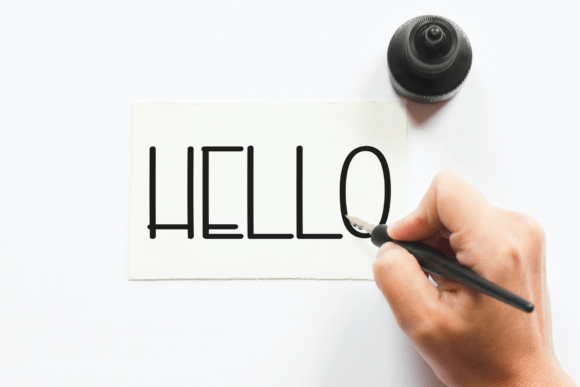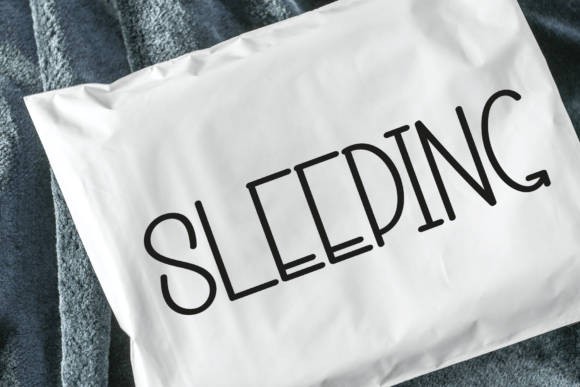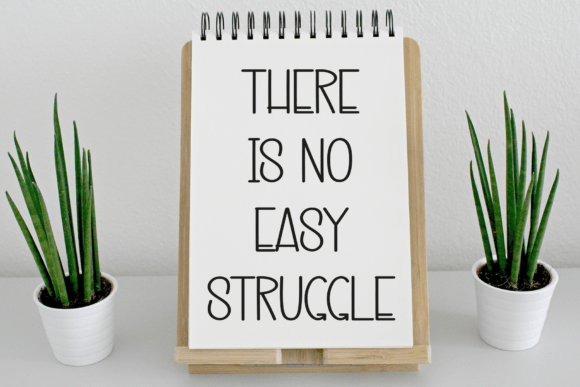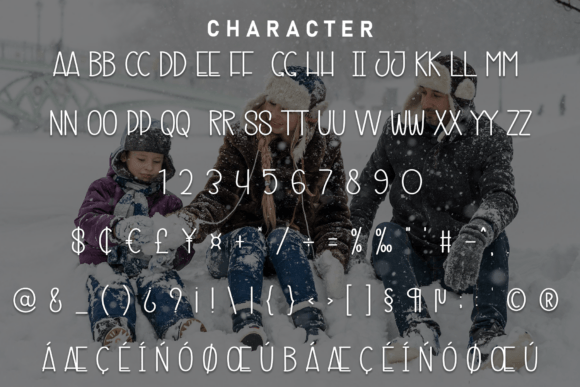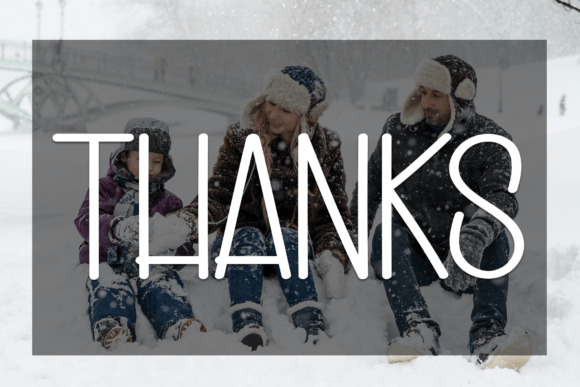
Introducing Happy Moment Font: The Perfect Handwritten Font for Your Design Projects
Are you looking for a font that can add a touch of warmth and personality to your design projects? Look no further than Happy Moment Font, a charming handwritten font that is filled with a sense of heartfelt perfection. With its smooth strokes and organic lines, this font is sure to evoke a relaxed atmosphere, making it perfect for a variety of design projects.
What Makes Happy Moment Font So Special?
Happy Moment Font is a unique and captivating font that is designed to bring a sense of joy and happiness to your designs. Its smooth strokes and organic lines give it a natural and effortless look, making it perfect for designs that require a personal touch. Whether you’re working on a branding project, creating invitations, or designing social media graphics, Happy Moment Font is the perfect choice.
Key Features of Happy Moment Font
- Smooth Strokes: Happy Moment Font features smooth strokes that give it a natural and effortless look.
- Organic Lines: The font’s organic lines add a touch of warmth and personality to your designs.
- Handwritten Style: Happy Moment Font is a handwritten font that is designed to bring a sense of personality and charm to your designs.
- Versatile: This font is perfect for a variety of design projects, including branding, invitations, and social media graphics.
Happy Moment Font is perfect for designers and crafters who are looking for a font that can add a touch of warmth and personality to their designs. Whether you’re working on a personal project or a client’s project, this font is sure to impress. Its unique and captivating style makes it perfect for designs that require a personal touch.
How to Use Happy Moment Font in Your Design Projects
Using Happy Moment Font in your design projects is easy. Here are a few ways you can use this font:
- Branding: Use Happy Moment Font to create a unique and memorable brand identity.
- Invitations: Add a personal touch to your invitations with Happy Moment Font.
- Social Media Graphics: Use Happy Moment Font to create eye-catching social media graphics that will grab the attention of your audience.
- Packaging: Use Happy Moment Font to add a personal touch to your packaging designs.
Tips for Pairing Happy Moment Font with Other Fonts
Pairing Happy Moment Font with other fonts can create a unique and visually appealing design. Here are a few tips for pairing this font with other fonts:
- Pair with a Serif Font: Pairing Happy Moment Font with a serif font can create a nice contrast and add depth to your design.
- Pair with a Script Font: Pairing Happy Moment Font with a script font can create a beautiful and elegant design.
- Pair with a Bold Font: Pairing Happy Moment Font with a bold font can create a nice contrast and add visual interest to your design.
Happy Moment Font is a charming handwritten font that is perfect for designers and crafters who are looking for a font that can add a touch of warmth and personality to their designs. With its smooth strokes and organic lines, this font is sure to evoke a relaxed atmosphere, making it perfect for a variety of design projects. Whether you’re working on a branding project, creating invitations, or designing social media graphics, Happy Moment Font is the perfect choice.